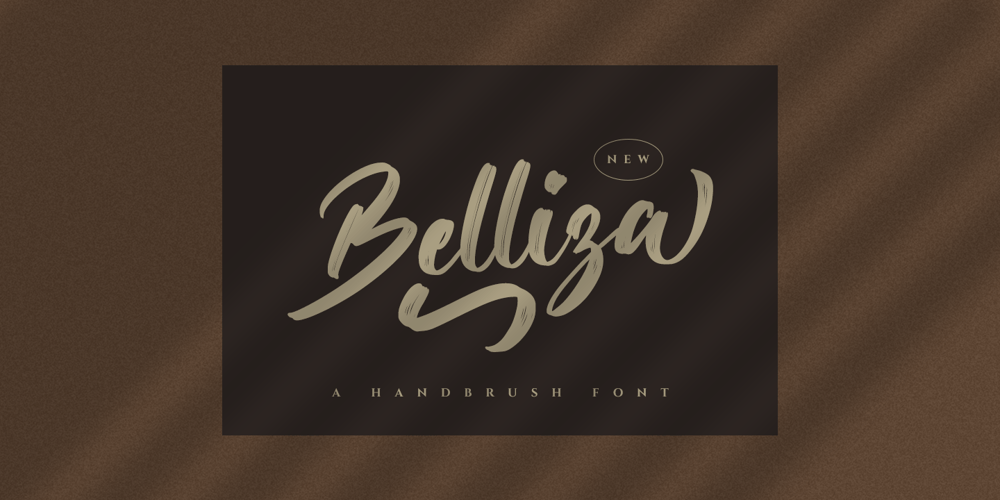
Belliza
Belliza font
Belliza Font Family was designed by Hayinah and published by Rockboys Studio. Belliza contains 1 styles and family package options. The Belliza is a natural handwritten brush font. It’s ideal for branding and decorating your projects, creating wedding invitations, book covers, marketing, and much more!